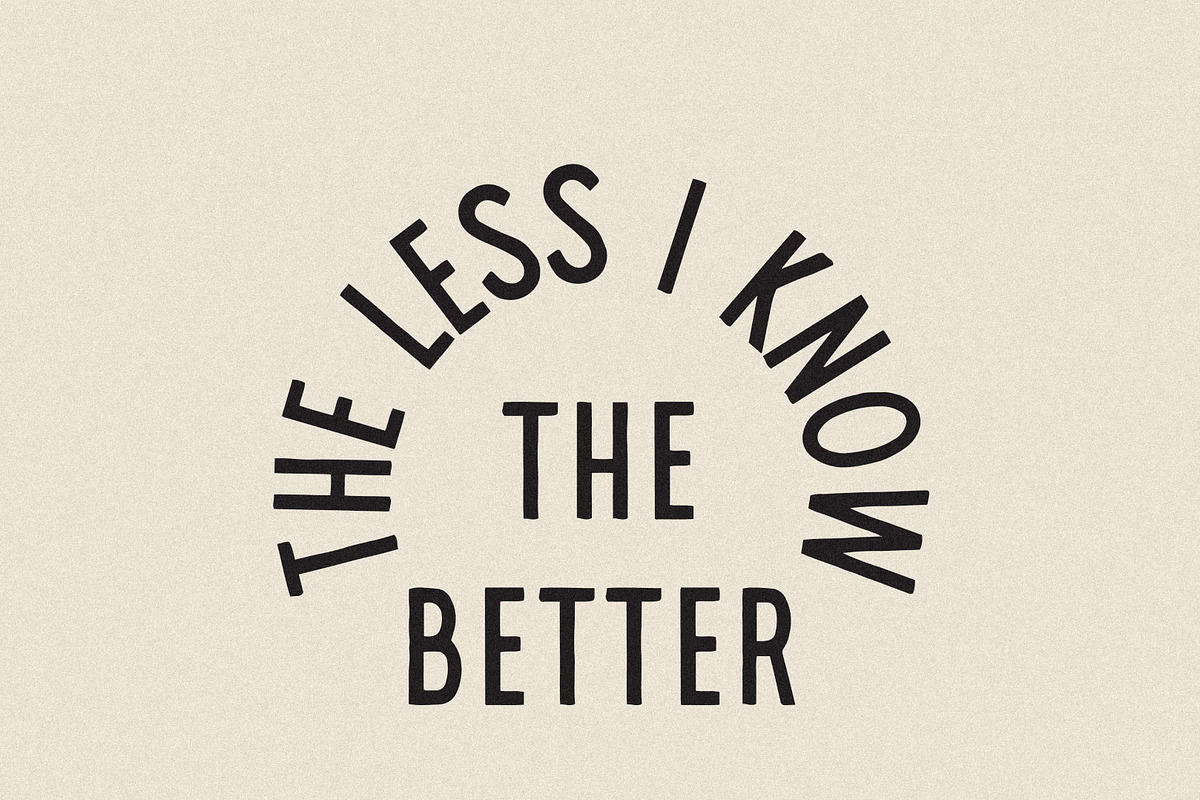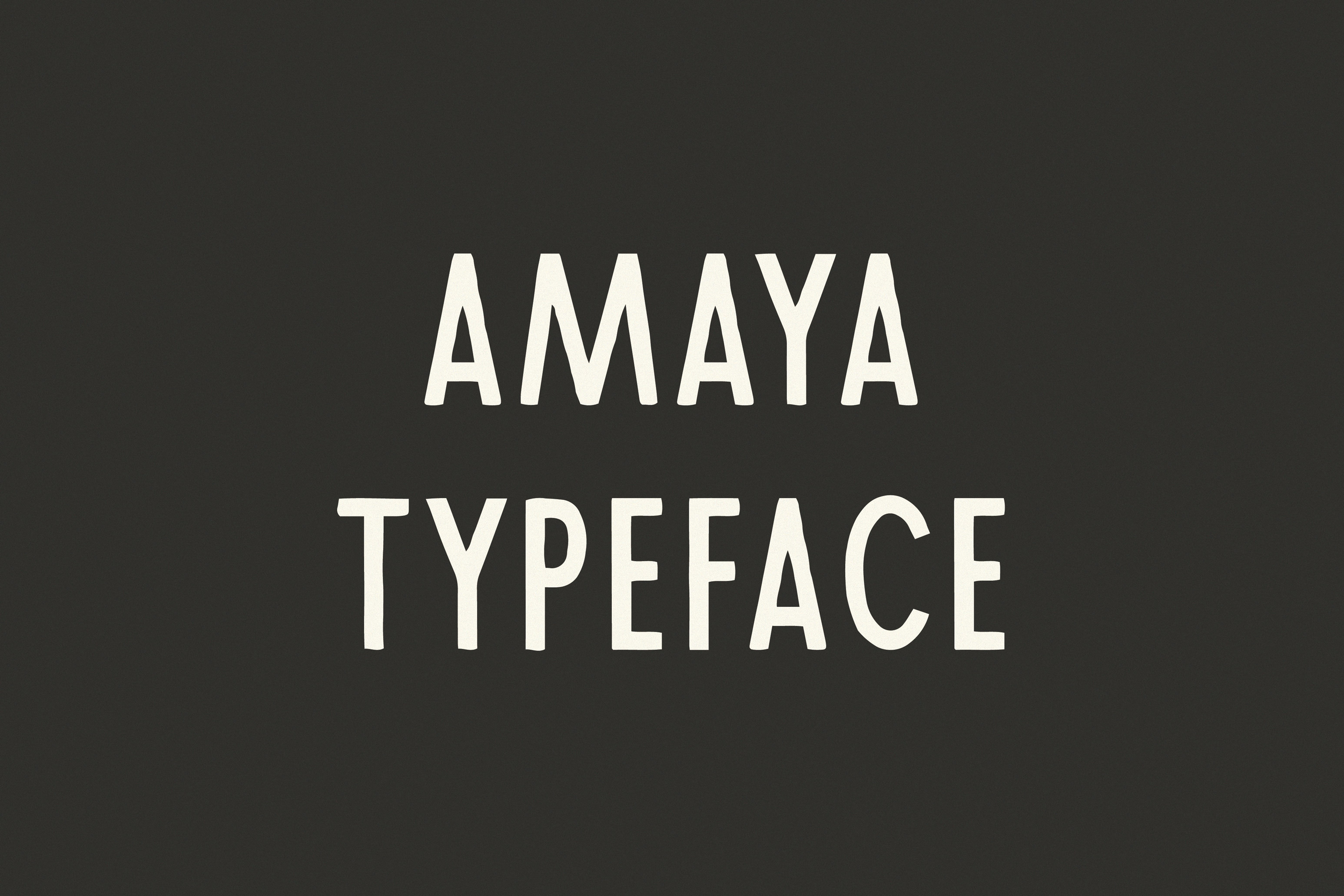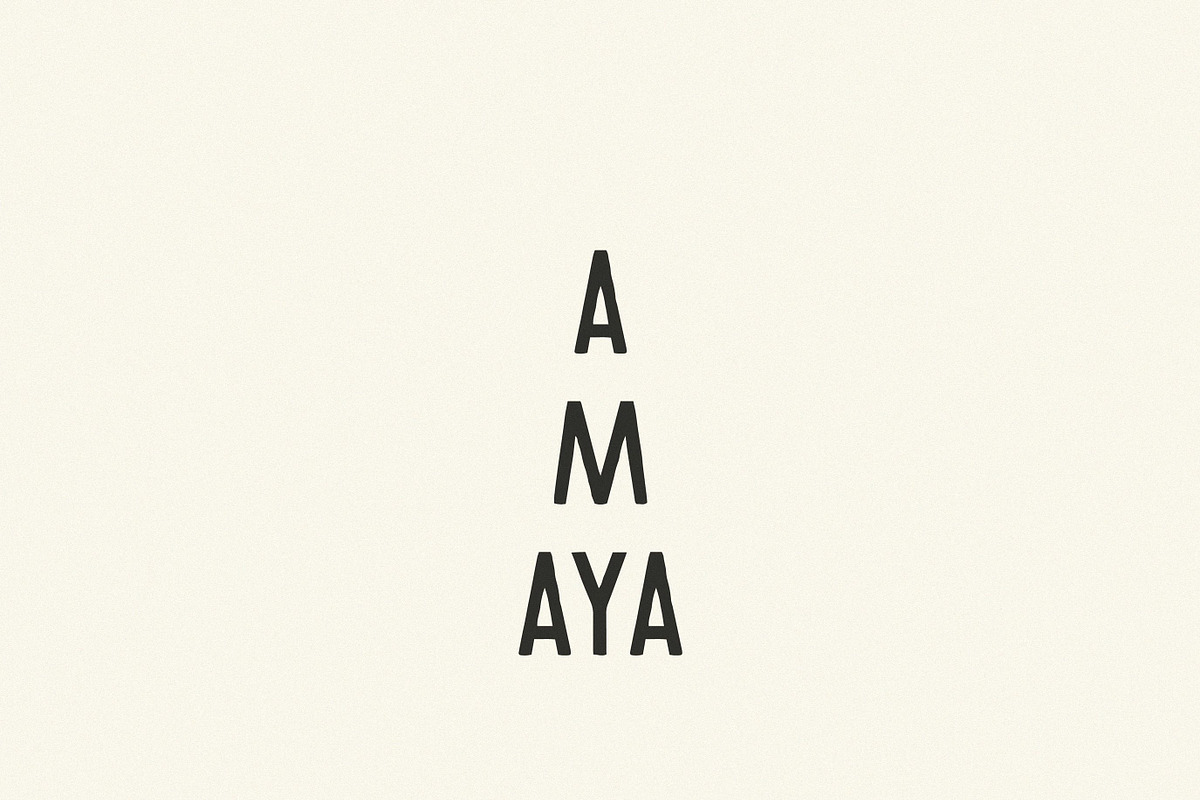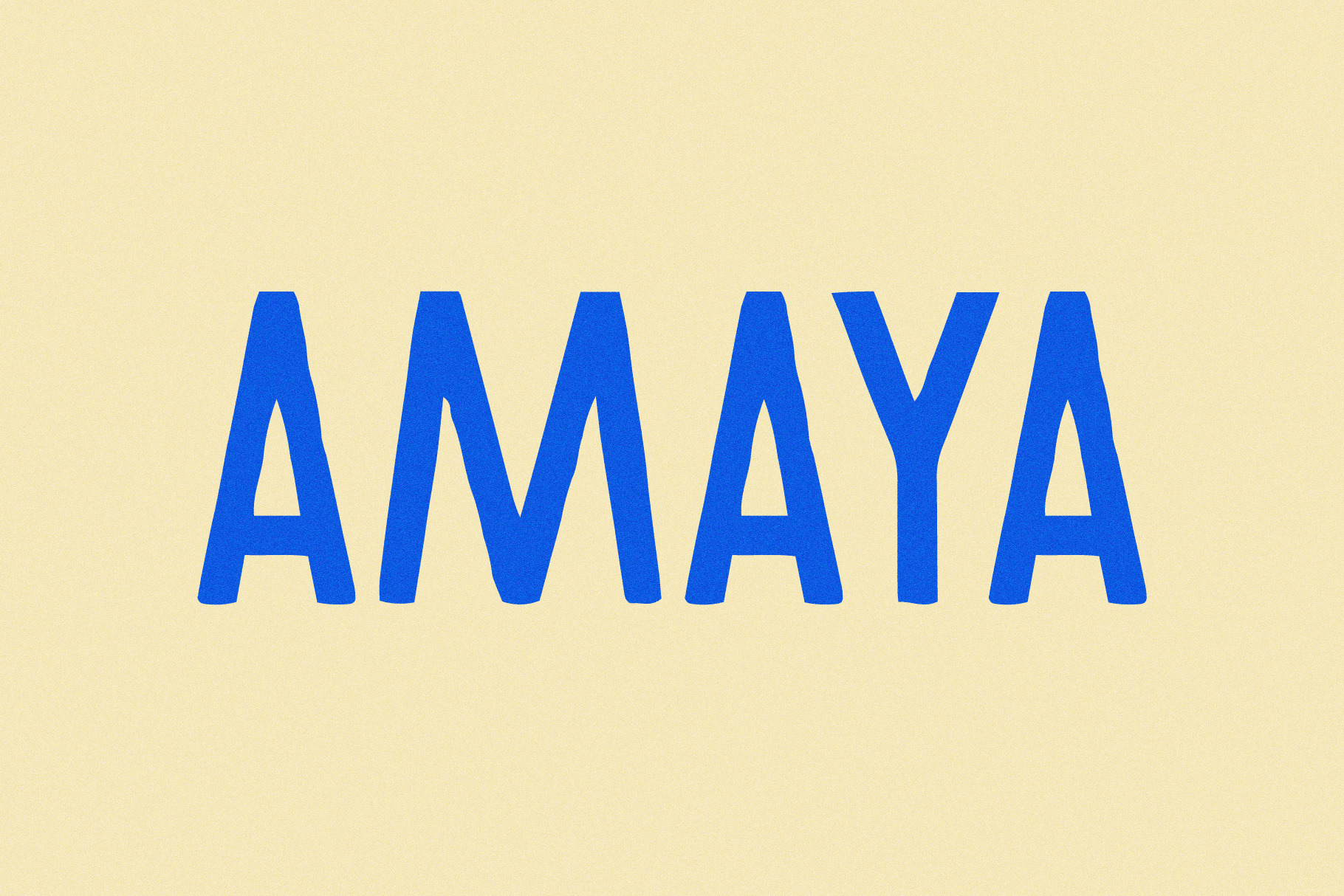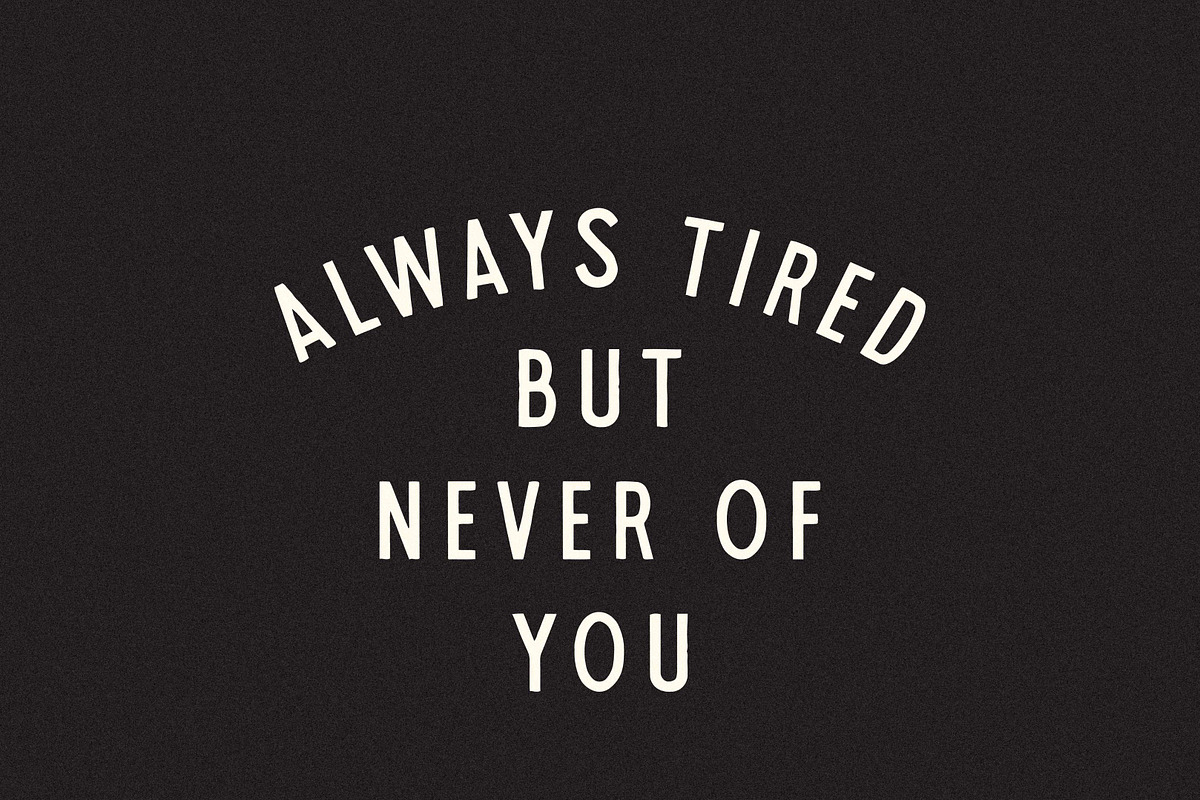
Amaya | A Tall Display Typeface
Amaya walks the line between survival gear and elegant display.
Its tall proportions and occasional wide letters give it a rhythm that feels steady, but human. A little weird, a little beautiful — and honestly, the ampersand is worth the download.
Basic Latin support with a limited set of accented characters.